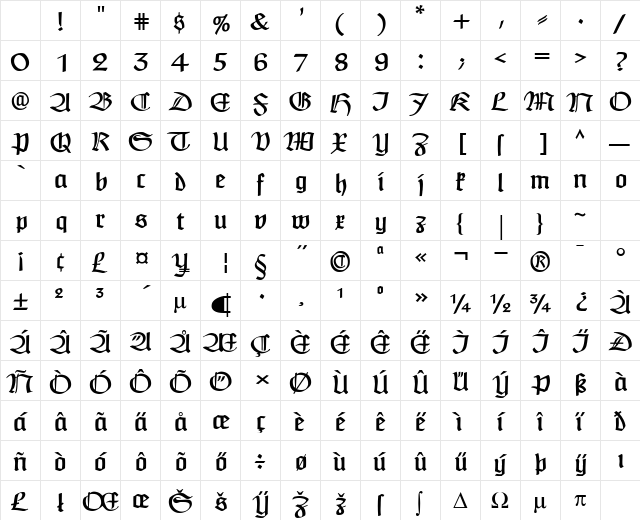
Claudius Regular Free Font
Claudius Regular
Copyright: Nach geschriebenen Vorlagen von Rudolf Koch stellte sein Sohn Paul Koch 1931-1934, also noch zu Lebzeiten seines Vaters, einen Grad der Schrift her; die uebrigen Grade wurden bis 1937 durch die Schriftgiesserei Gebr. Klingspor (Offenbach/M.) ergaenzt.
Designer: Rudolf Koch. Digitalisiert durch Dieter Steffmann, Kreuztal
Design Context for Claudius
Claudius is a composed and adaptable typeface that performs quietly and consistently across a wide range of design contexts.